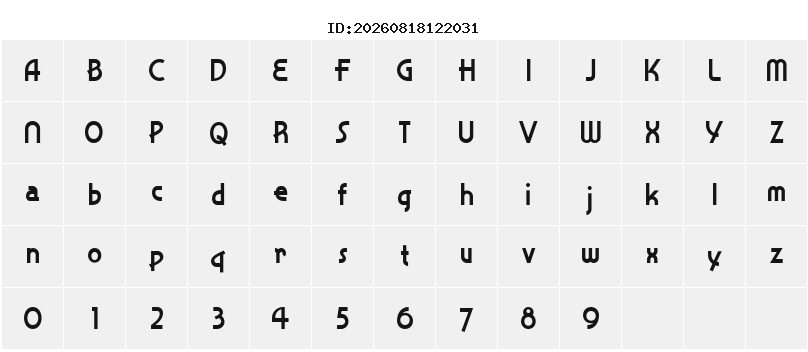
• Font Name: Snappy Service NF
• Font ID: Nick'sFonts: Snappy Service NF: 2006
• Full Font Name: Snappy Service NF
• Designer: Nick Curtis
• Manufacturer: Nick's Fonts
About Snappy Service NF.ttf
Snappy Service NF.ttf is a modern, elegant sans-serif font designed for ultimate readability and visual harmony. Perfect for branding, headlines, web design, and print materials.